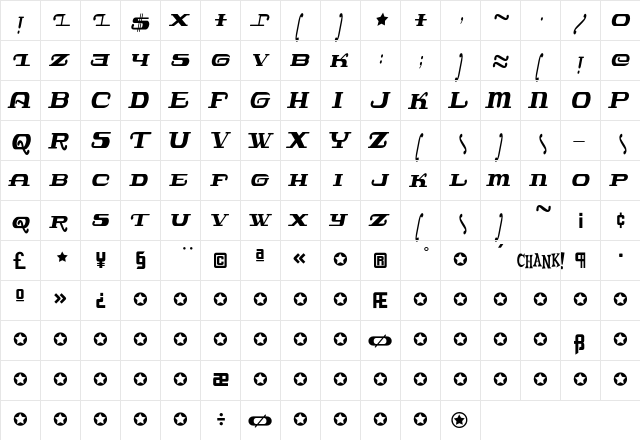
Javatronic Regular
Design Context for Javatronic Typeface
Javatronic is a composed and adaptable typeface that performs quietly and consistently across a wide range of design contexts.